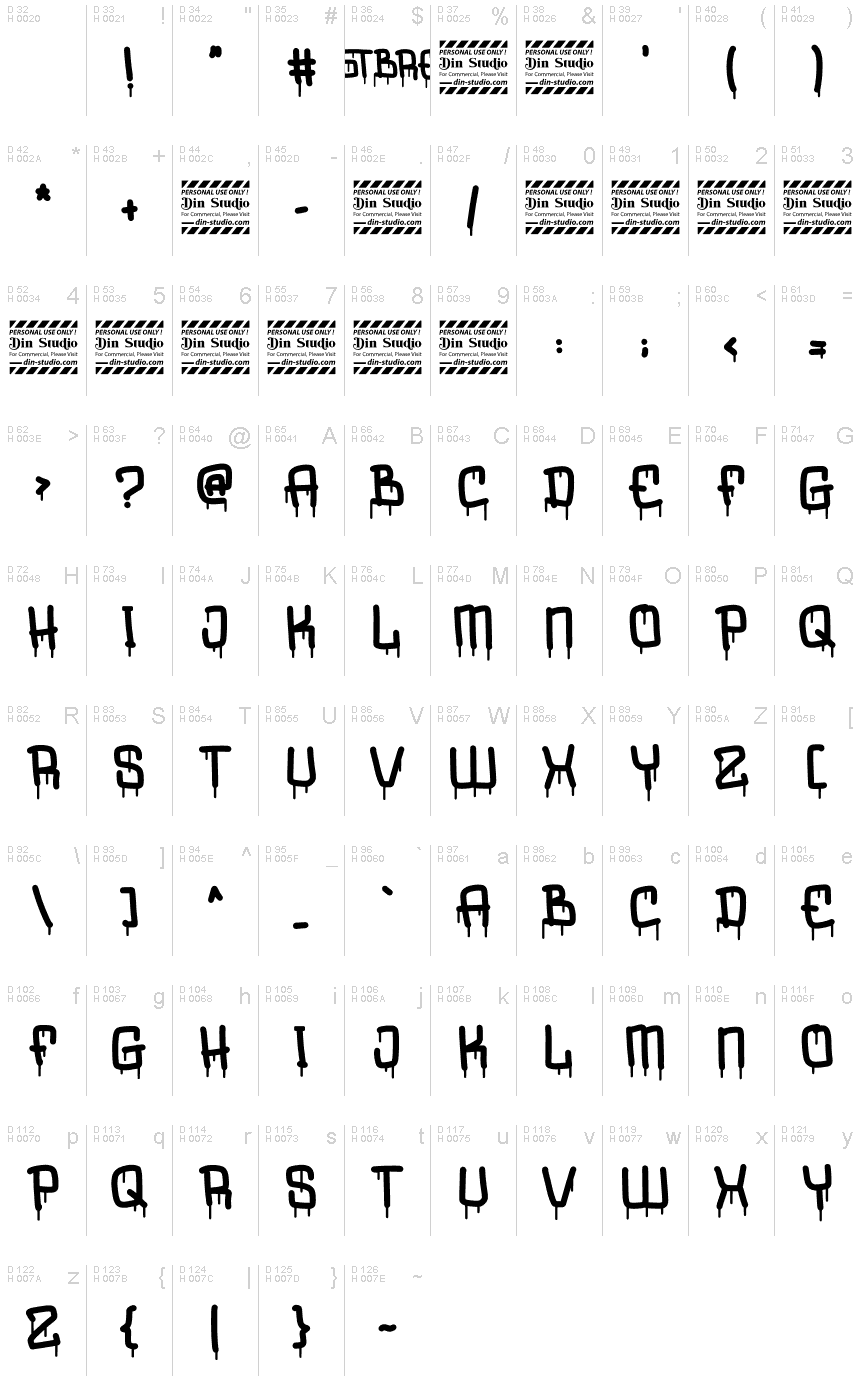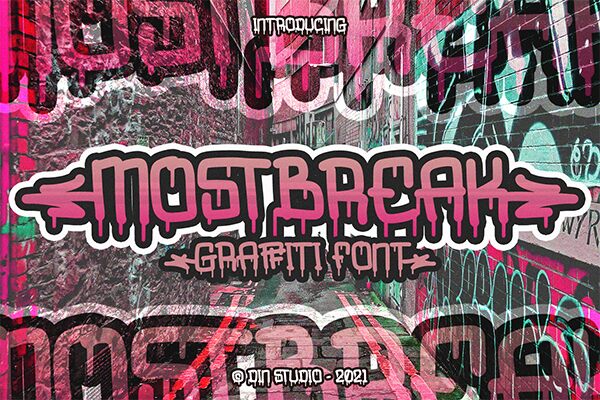
Mostbreak Personal Use
Mostbreak, crafted with precision by Din Studio, embodies the rebellious spirit of street art while maintaining a playful bubble-like form. This semi-light graffiti font injects spontaneity and edginess into any creative project, making it an ideal choice for designers aiming to add a touch of urban flair to their work.
With its unique dripping effect, Mostbreak excels in crafting impactful headings that command attention, whether splashed across posters or giving life to brand logos. Its distinctive style ensures that your design will not only stand out but also evoke the authentic essence of graffiti culture.
Engage with Mostbreak and let your designs speak the language of contemporary street art with elegance and originality.